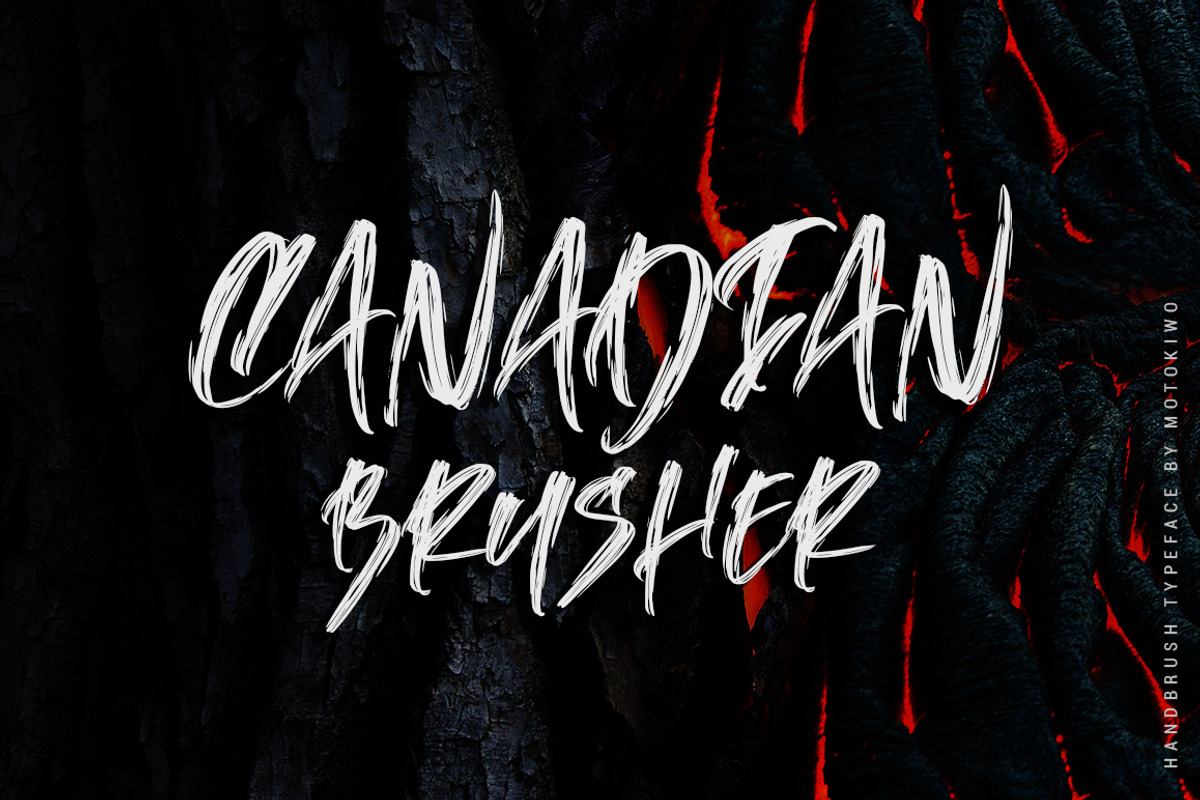
Canadian Brusher - Hipster Typeface Free Download is a bold, free-spirited brush font with a rugged, handcrafted feel—perfect for designs that embrace authenticity and creativity. Inspired by vintage aesthetics and modern hipster culture, this typeface is ideal for logos, apparel, posters, cafe branding, adventure-themed graphics, and social media content.
With its textured brush strokes and raw personality, Canadian Brusher adds energy and edge to any project while maintaining strong readability. It captures the laid-back yet adventurous vibe of the outdoors, creativity, and artisanal style.